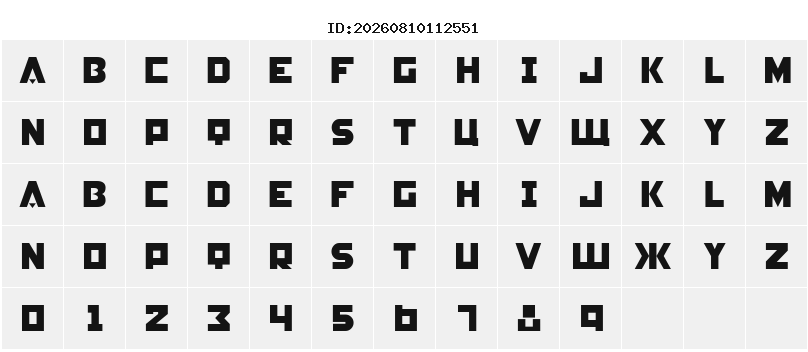
P22 Constructivist Preview
• Font Name: P22 Constructivist
• Font Style: Square
• Full Font Name: P22 Constructivist Square
About P22 Constructivist.ttf
P22 Constructivist.ttf is a modern, elegant sans-serif font designed for ultimate readability and visual harmony. Perfect for branding, headlines, web design, and print materials.